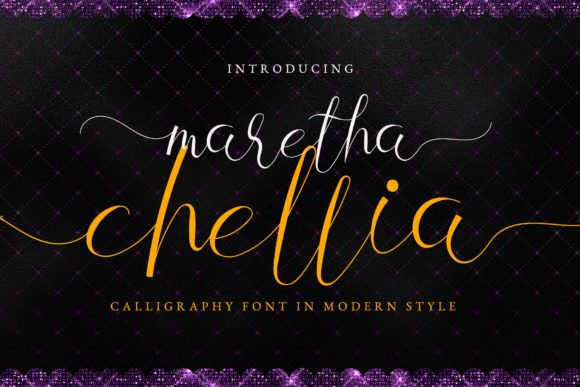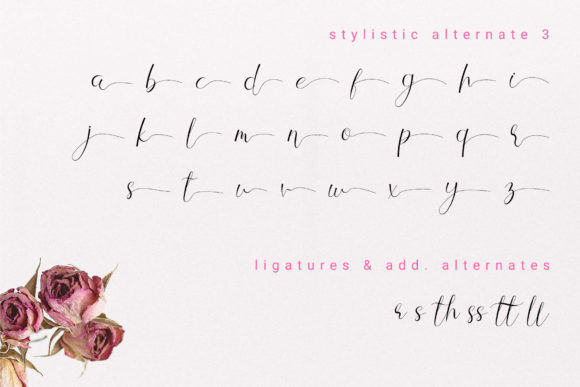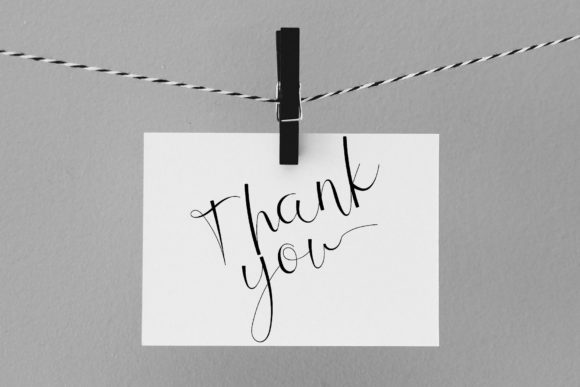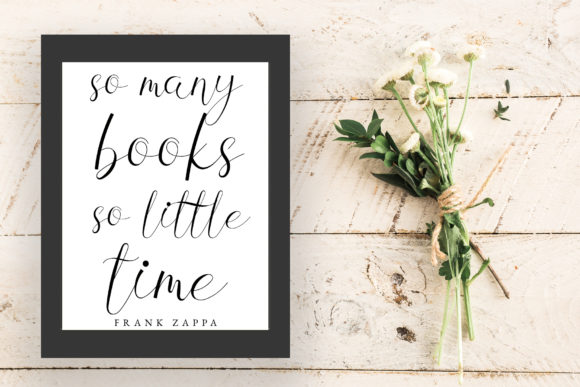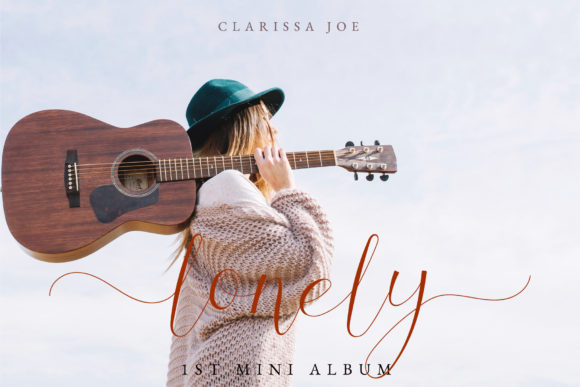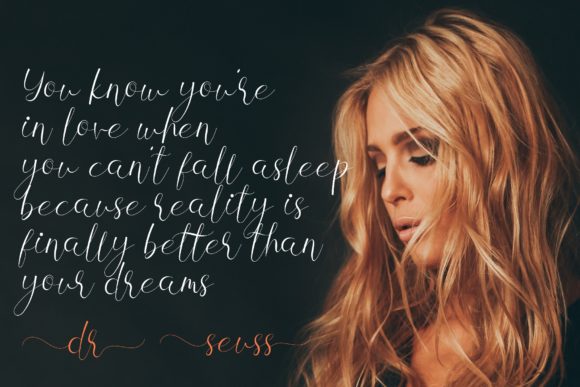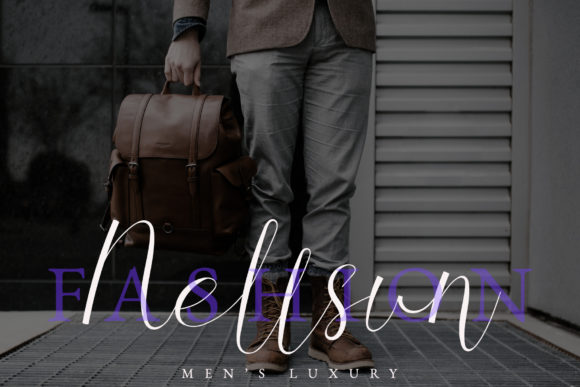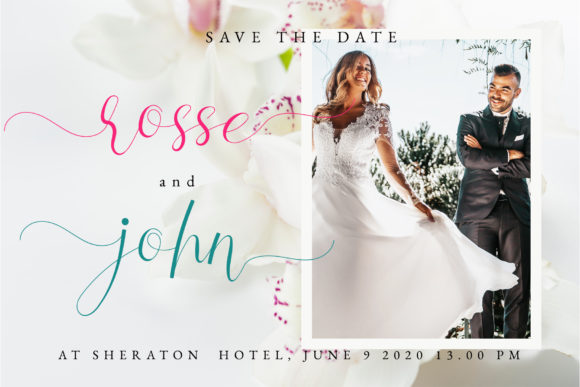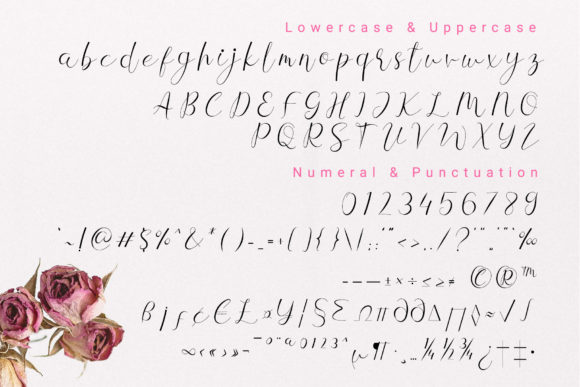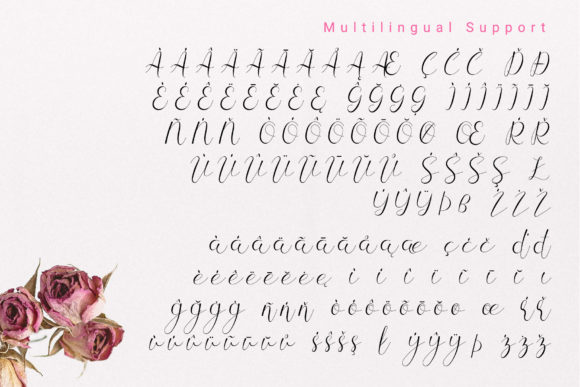
Maretha Chellia Font
About Maretha Chellia Font
Maretha Chellia is a charming and beautiful calligraphy font. It has gorgeous swashes and ligatures. Use it for any design project that requires a personalized appearance!